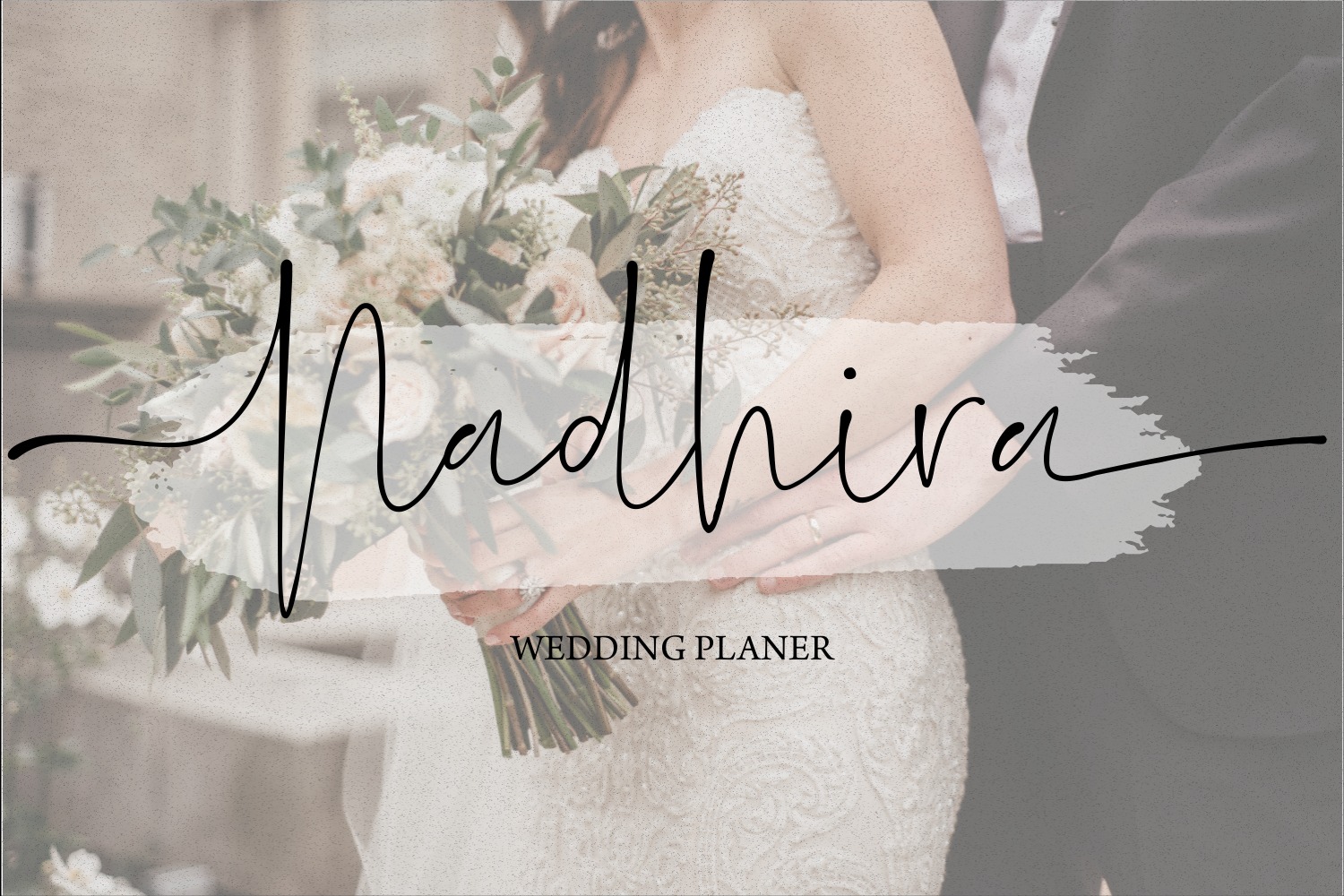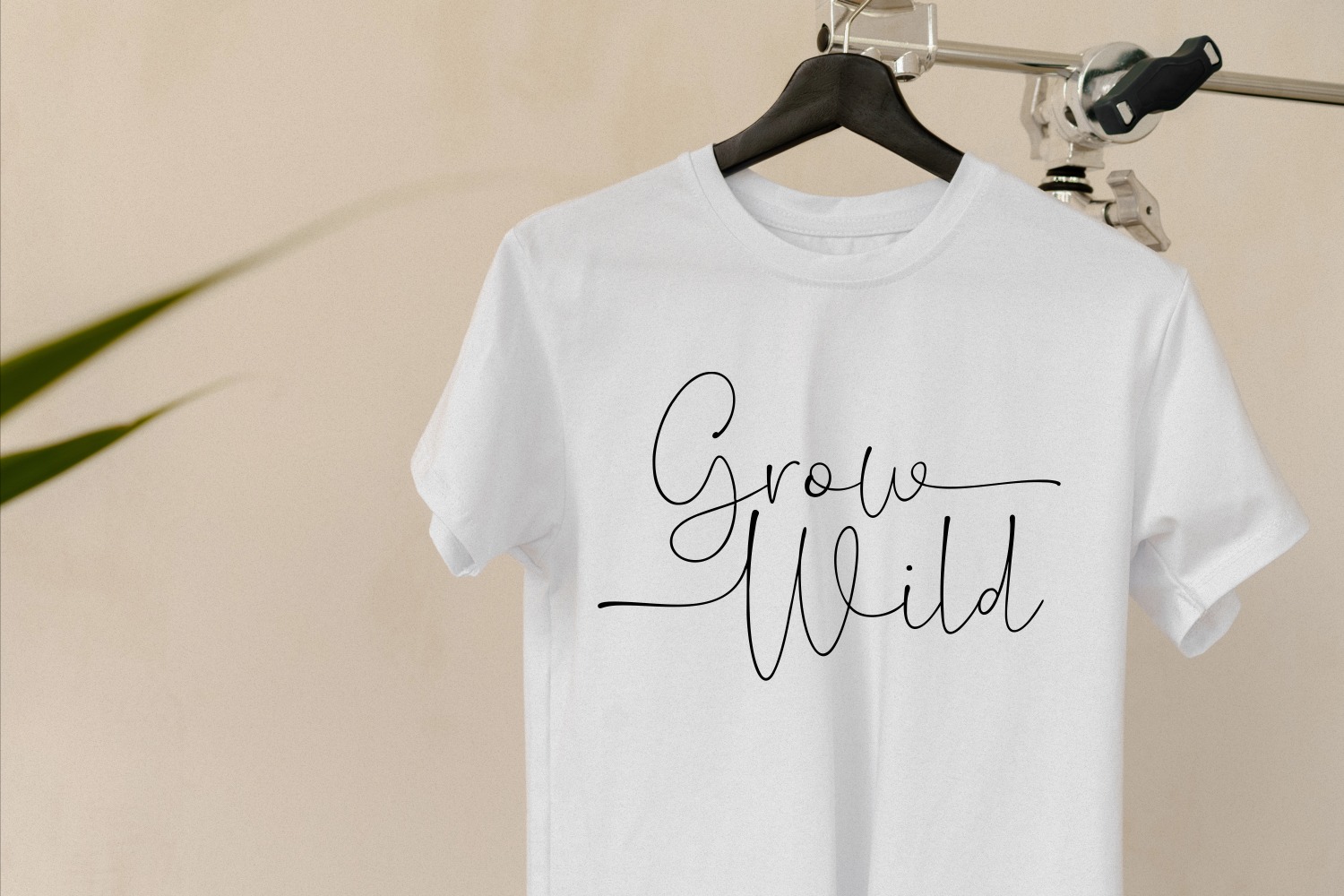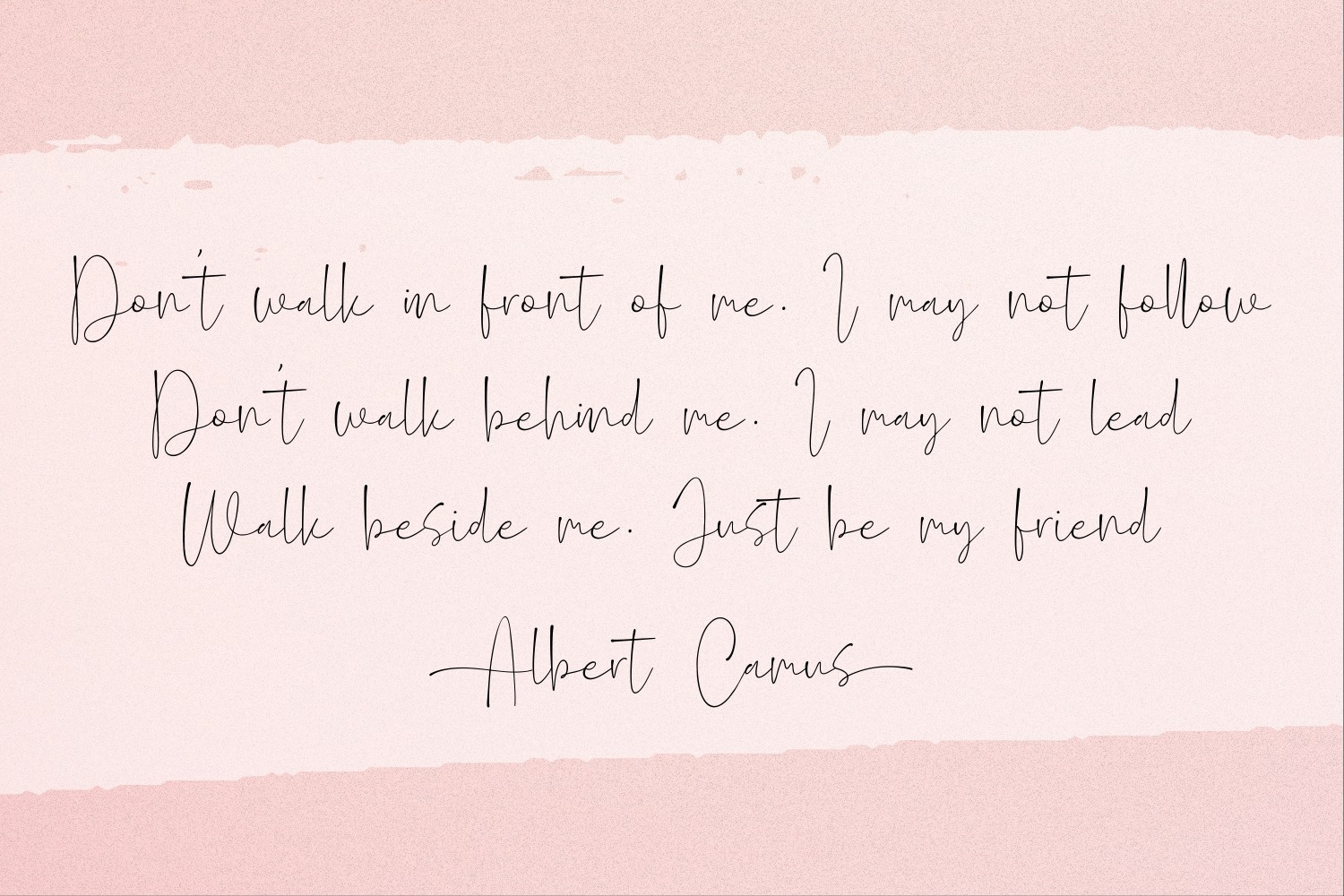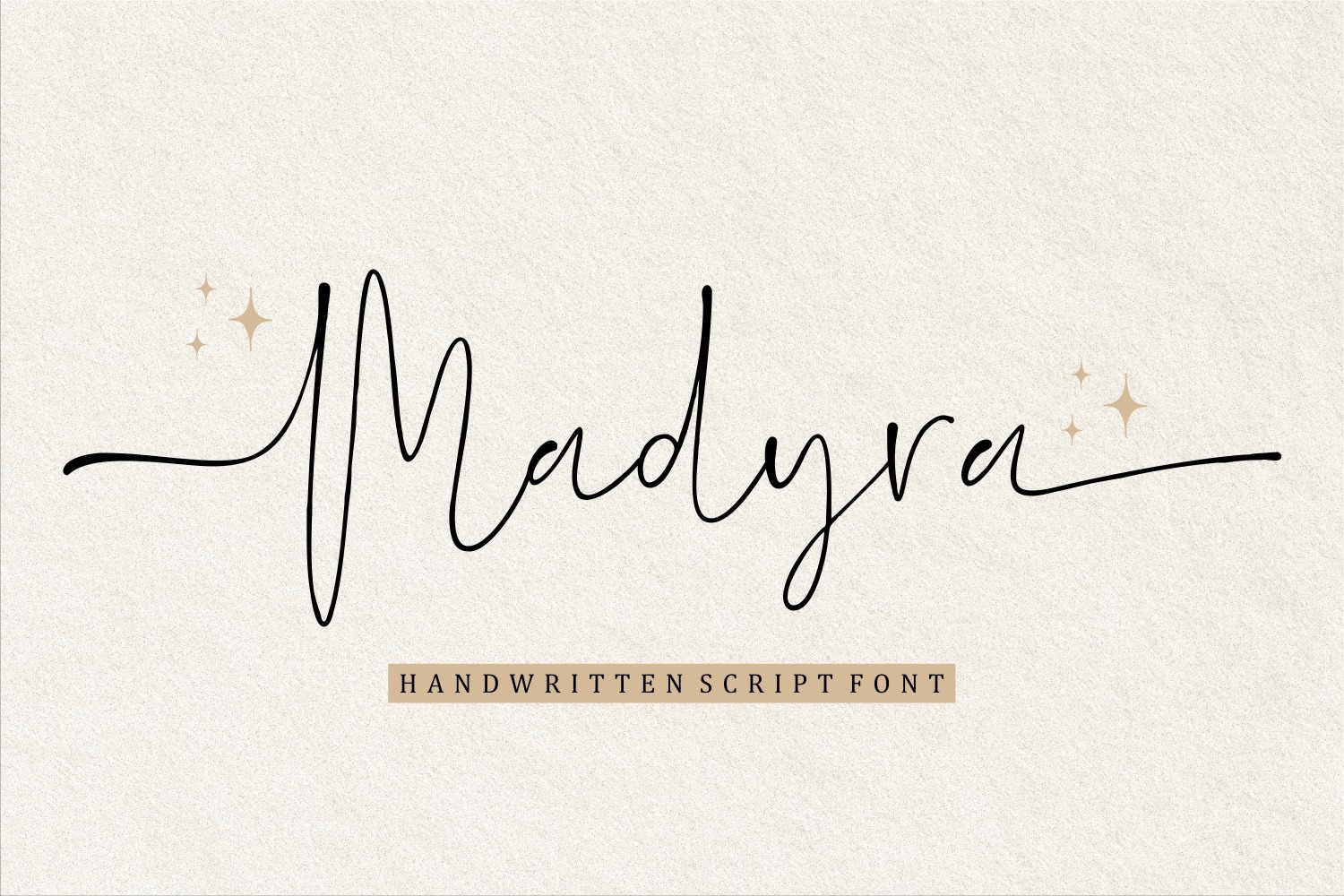
Madyra Font
Madyra Script Font is handmade and organic script loaded with ligature glyphs and multilingual support. Made from font designer named Forberas. Great for wedding greeting cards, logos, branding materials, Invitation, business cards, quotes, posters, Cricut artwork and more!